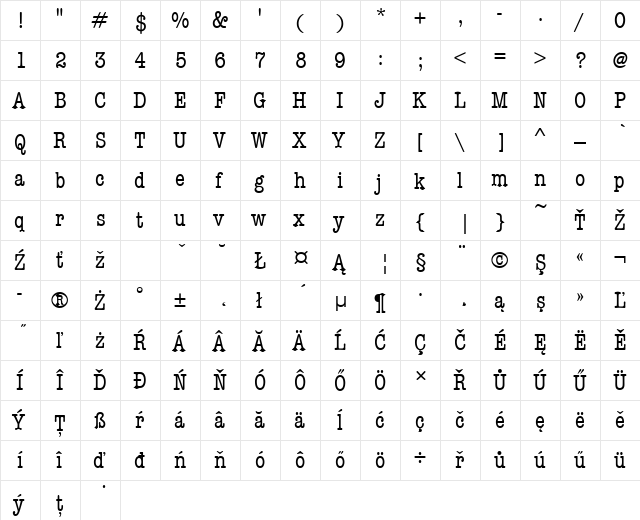
AmericanTypItcTEEMedCon Regular Font Preview
AmericanTypItcTEEMedCon Regular
Design Context for AmericanTypItcTEEMedCon Typeface
AmericanTypItcTEEMedCon offers clean, dependable letterforms without strong stylistic allegiance, making it a practical choice for designers who need flexibility.